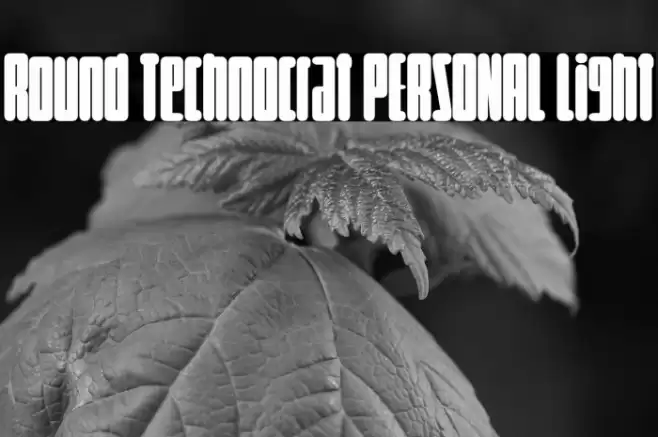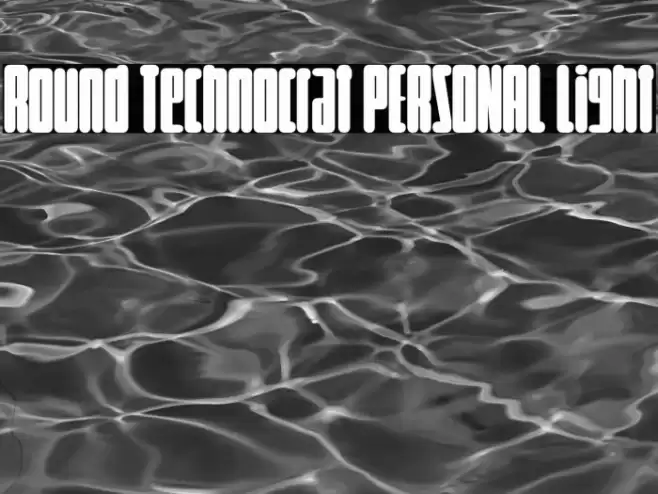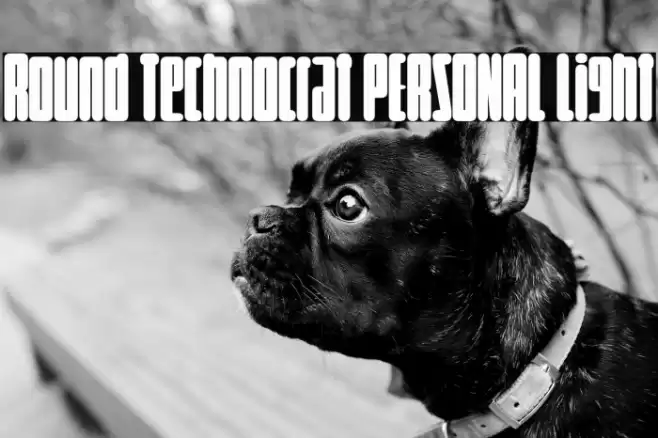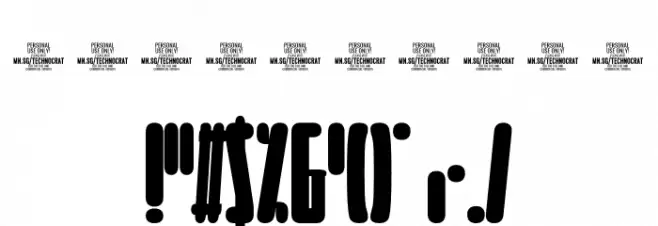
Round Technocrat PERSONAL Light Font
Round Technocrat PERSONAL Light Description
This font features a bold, rounded style with a modern and futuristic aesthetic. The characters are uniformly thick, creating a strong visual impact. The rounded edges give it a friendly and approachable feel, while the consistent stroke width maintains a clean and professional look. The uppercase and lowercase letters are designed with a uniform height, contributing to a cohesive appearance. The numerals and special characters follow the same design principles, ensuring consistency across all elements. This font is ideal for projects that require a bold statement or a modern touch.
A bold, rounded font with a modern and futuristic style from Uncategorized fonts.